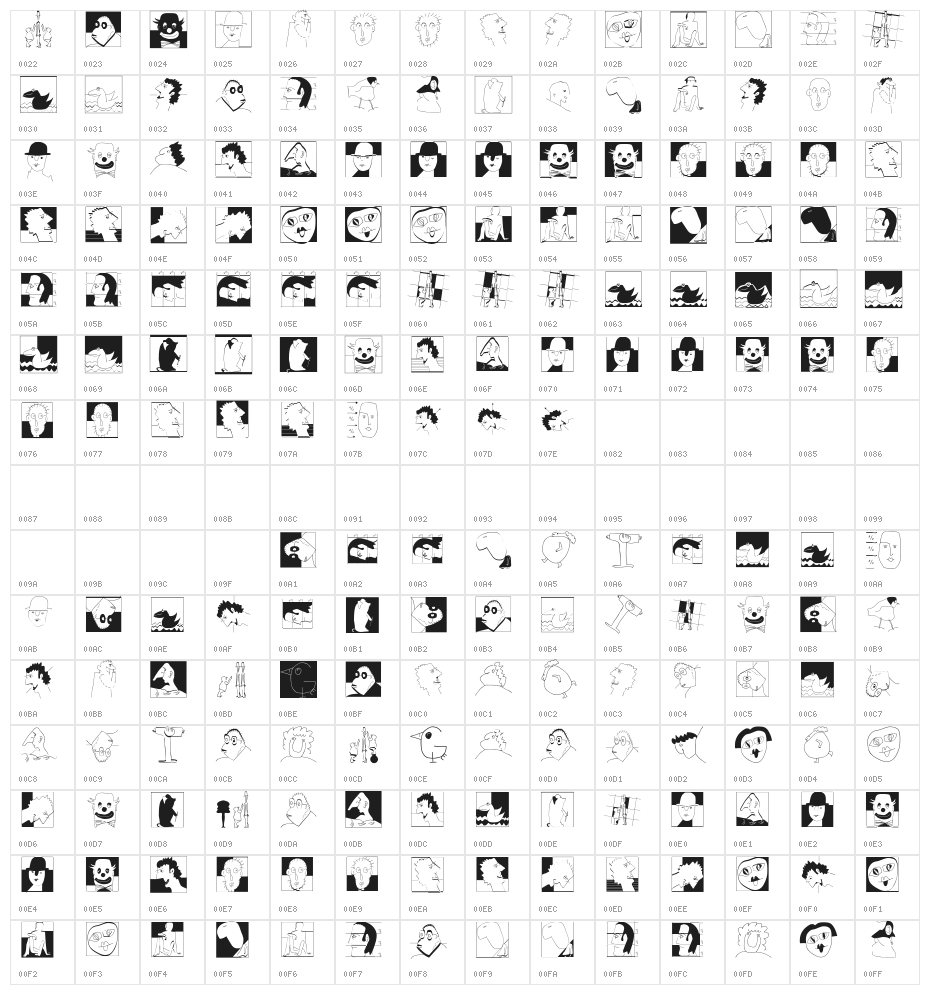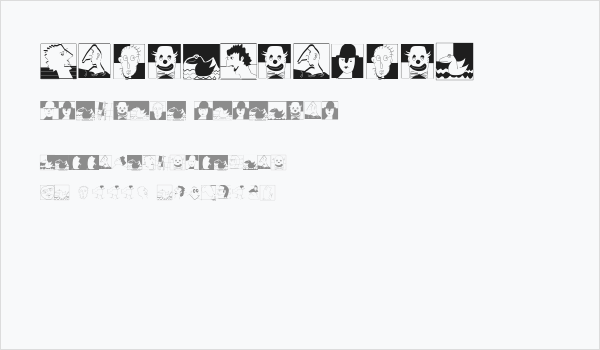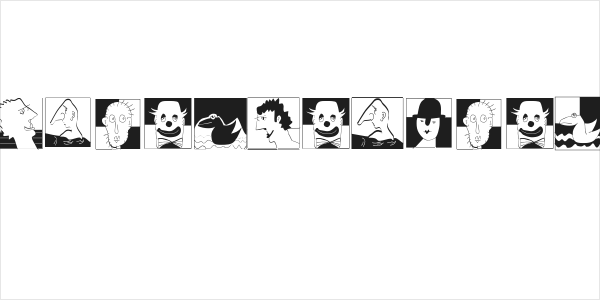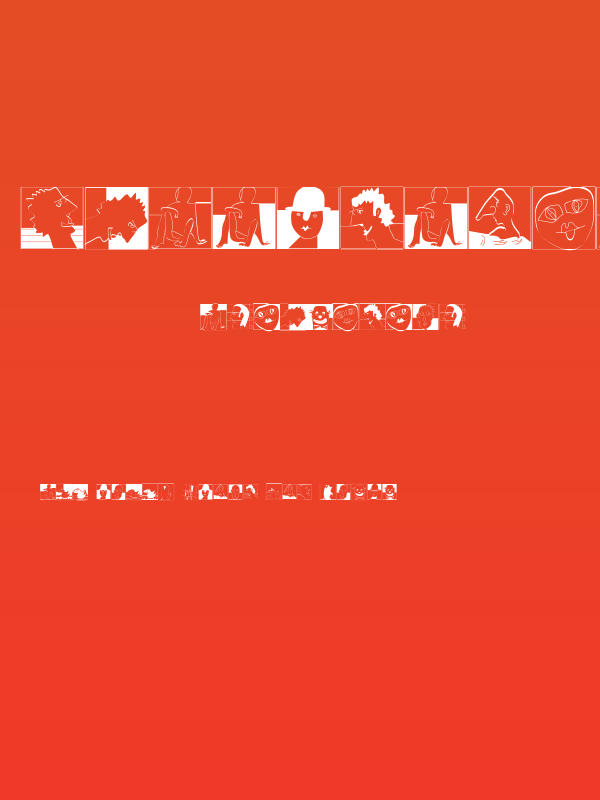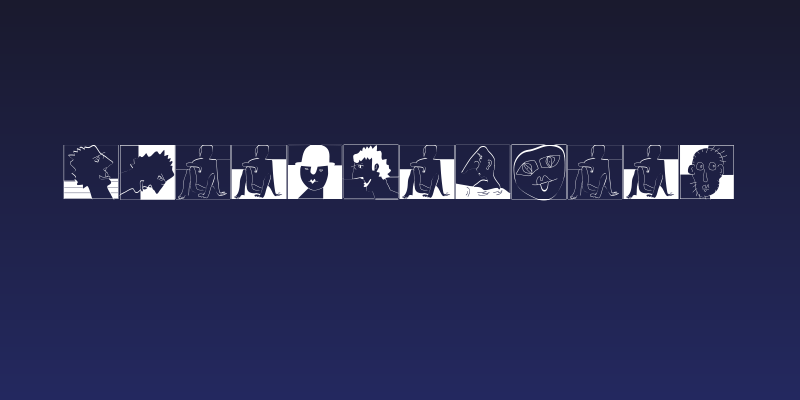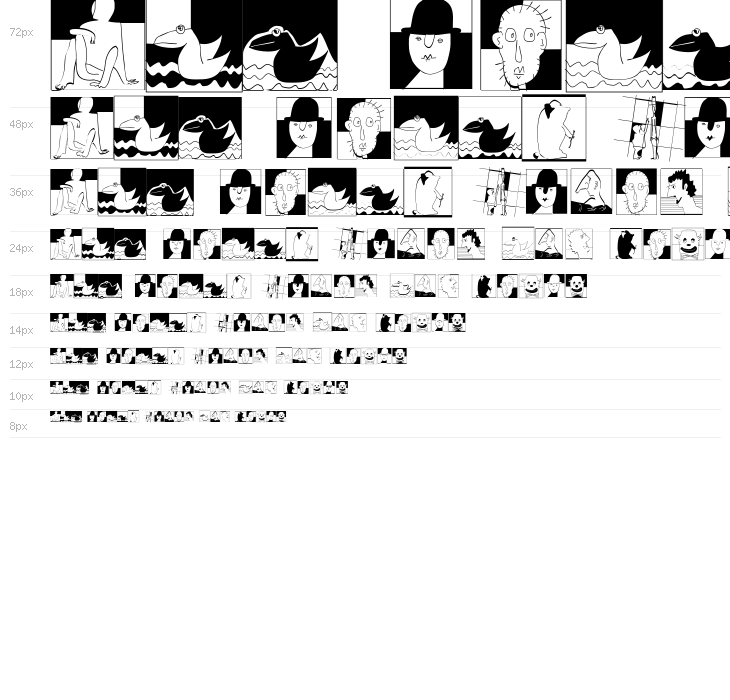
MouseAsBrush Font
MouseAsBrush Description
A highly decorative and whimsical font composed of hand-drawn cartoon faces, animals, and abstract figures, each character occupying a square frame with a playful, sketch-like line quality and varying levels of black and white contrast.
| Overall Style | Decorative, Whimsical, Artistic |
| Use Case | Logos, Headlines, Posters, Artistic projects |
| Proposed Projects | ChildrenΓ’β¬β’s books, comic titles, creative posters, art projects, playful branding, greeting cards. |